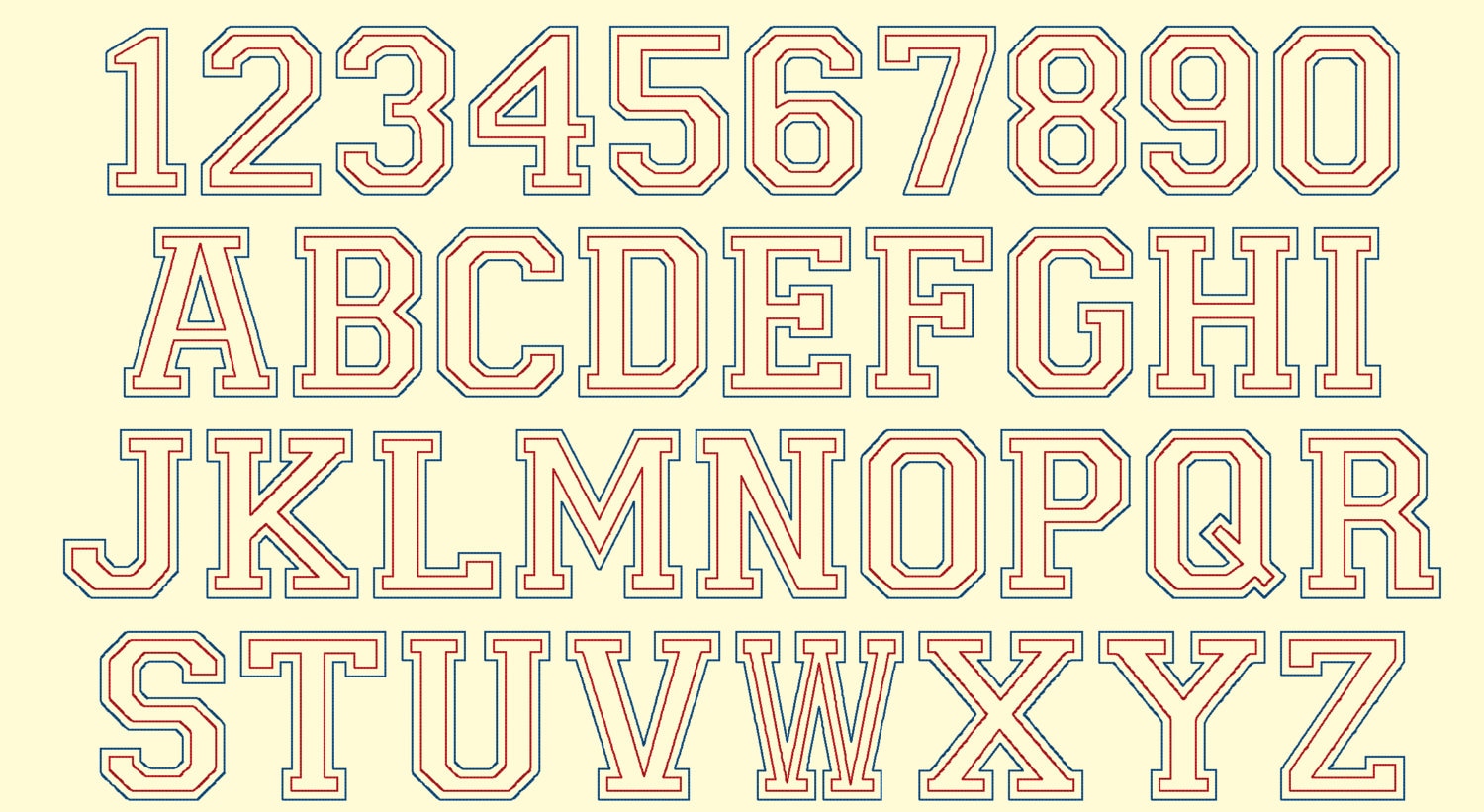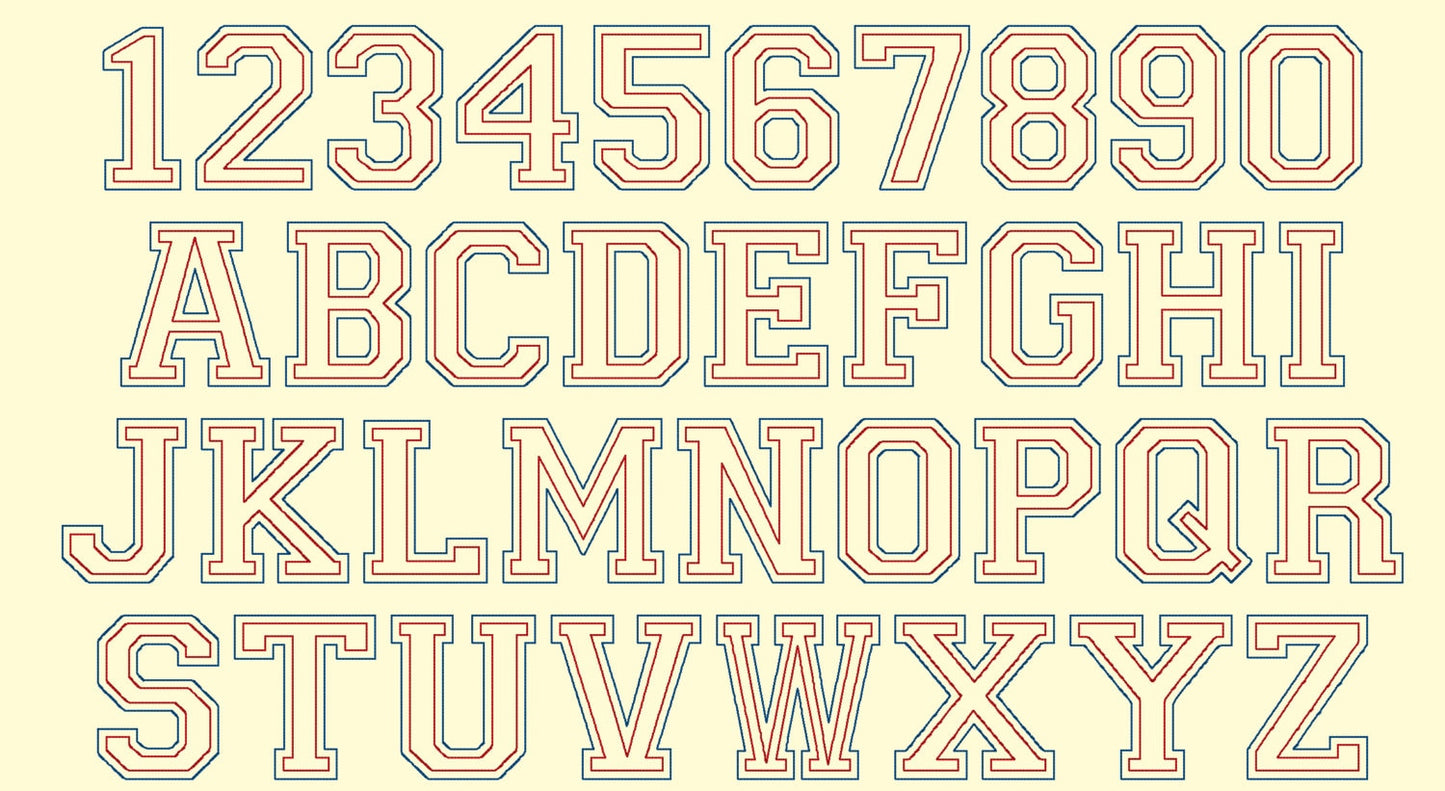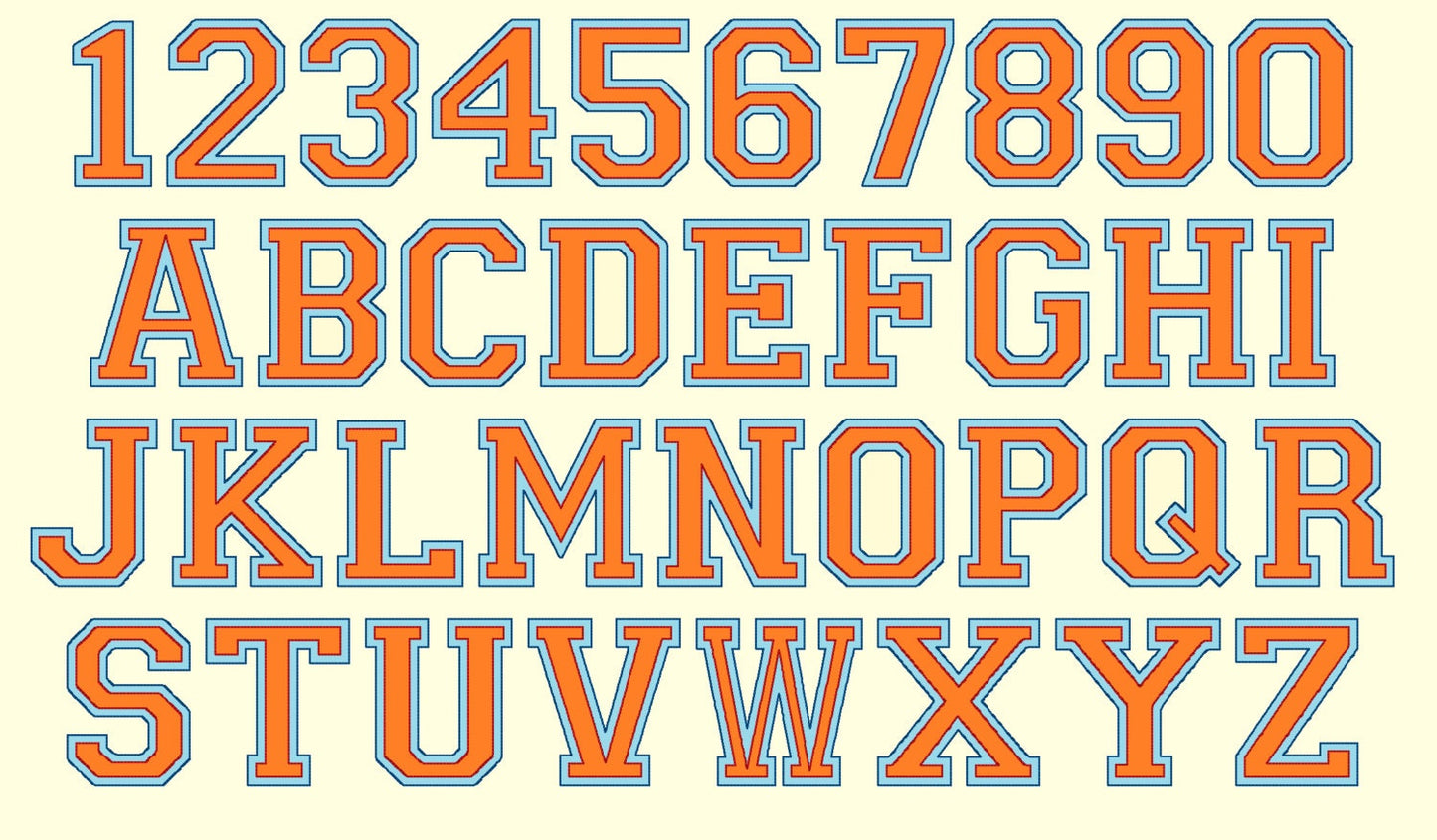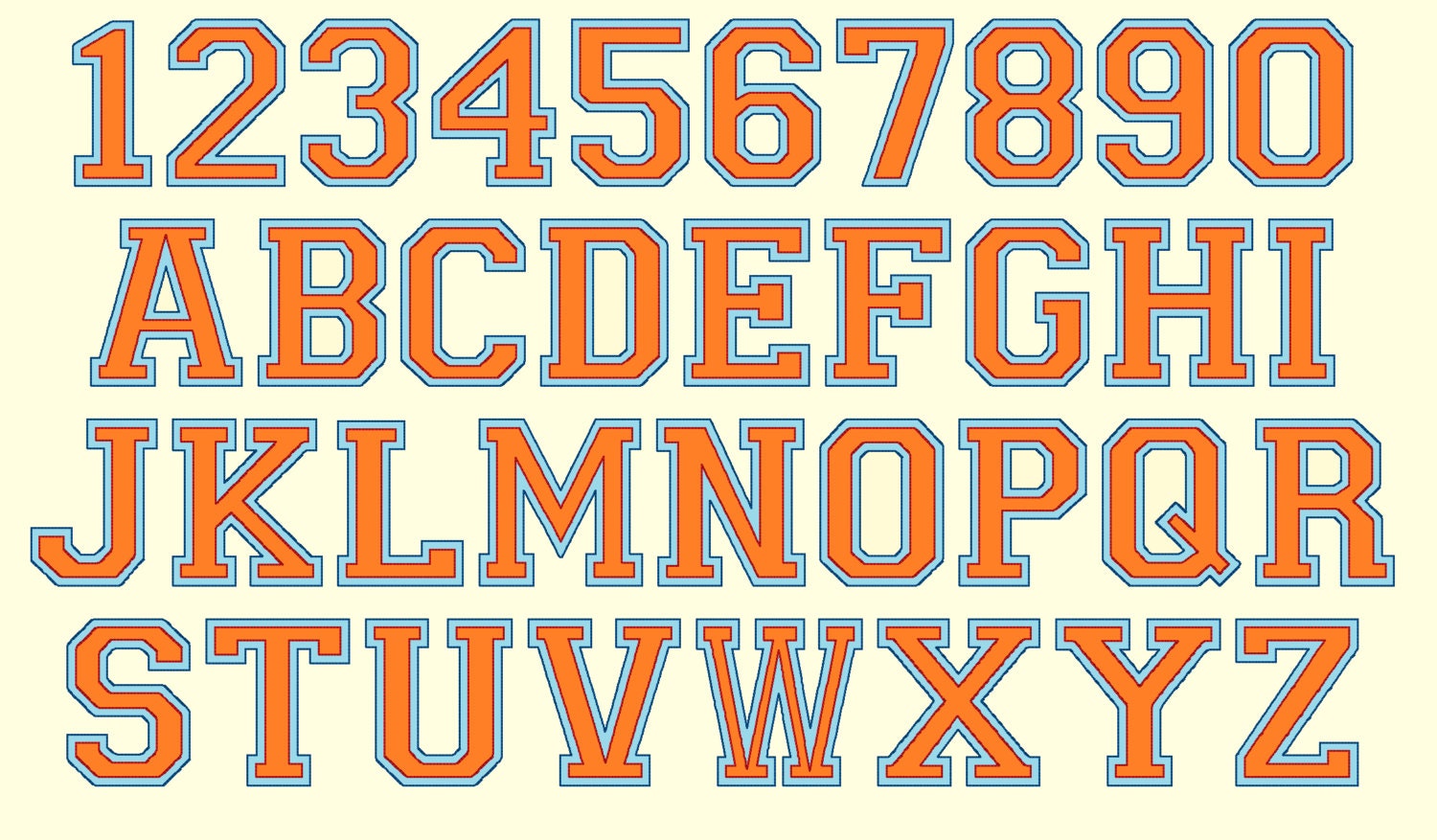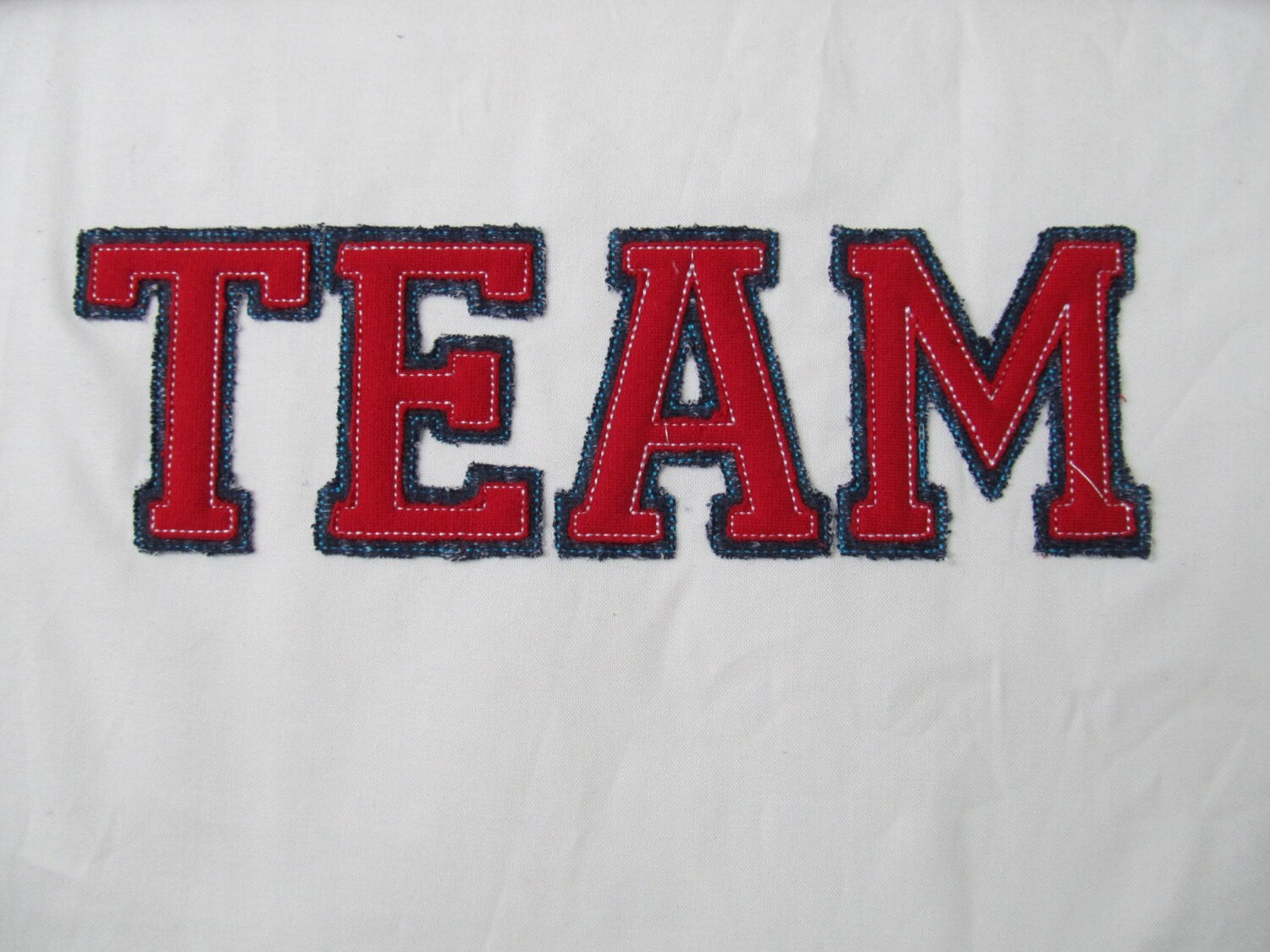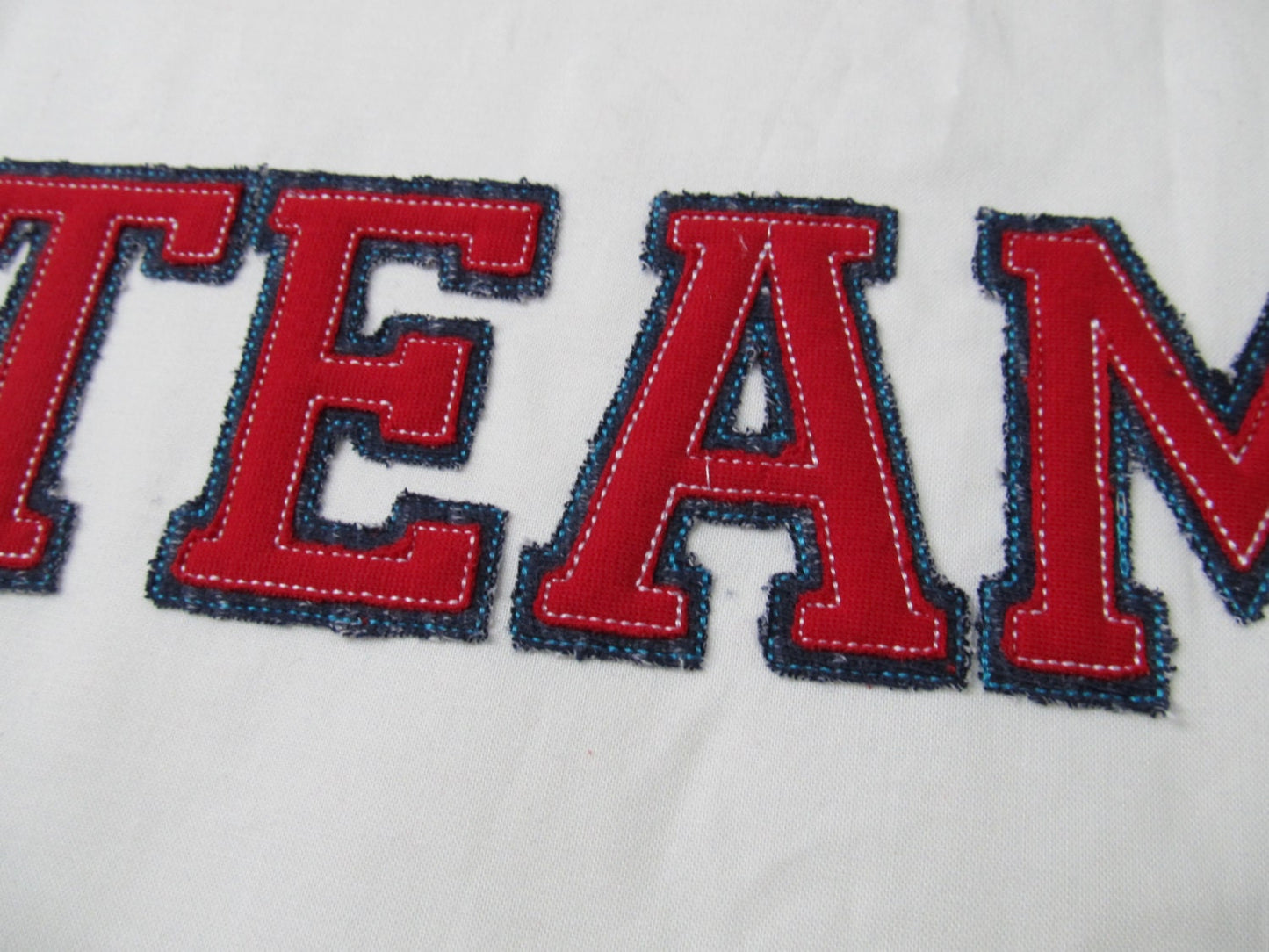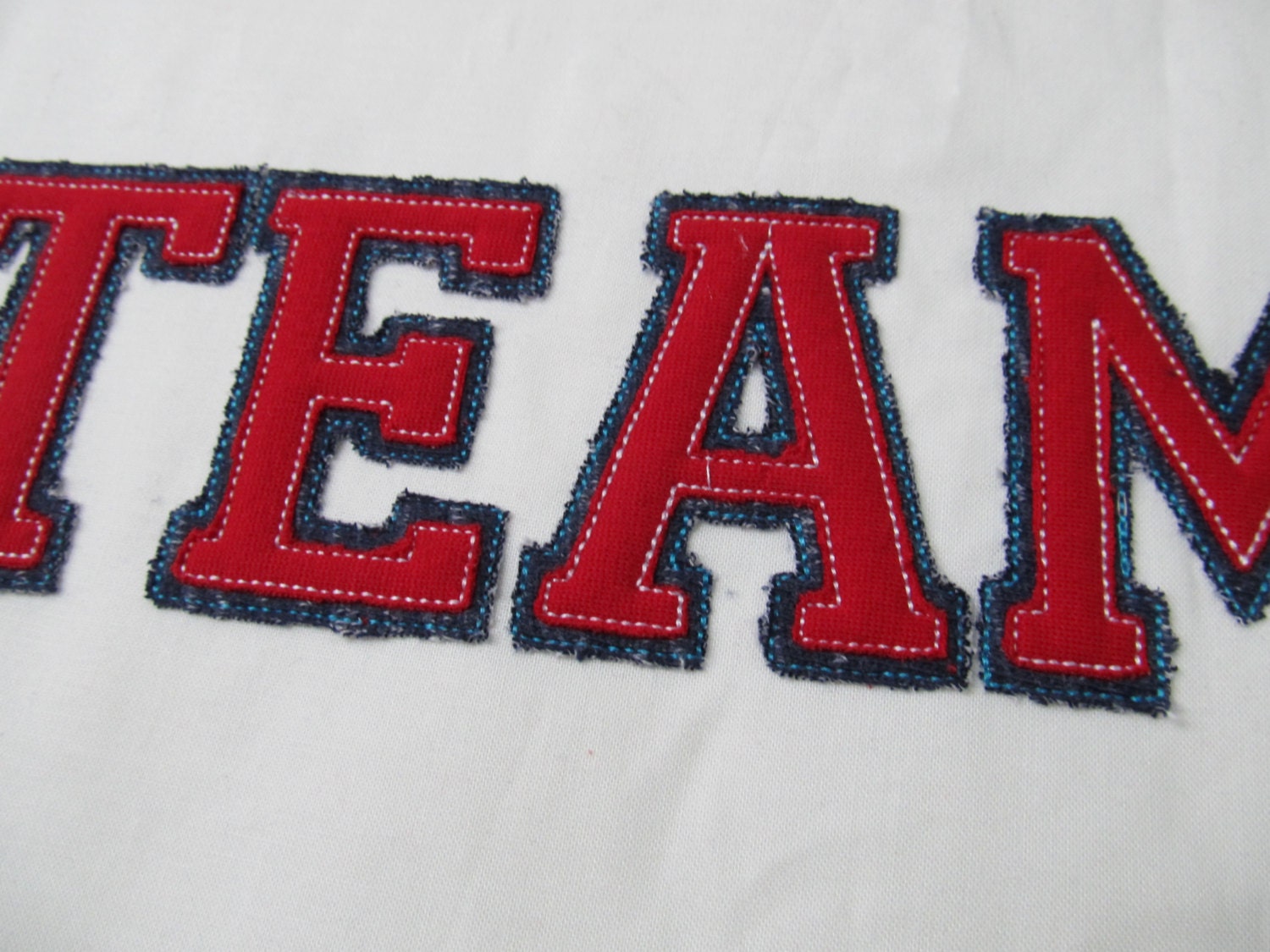
Or click to open the linkAn athletic collegiate applique font with a double bean stitch outline, for team names and numbers on jerseys and hoodies.
Applique letters with a bean stitch outline. Capital letters A to Z and numbers 0 to 9 in five sizes: 2.5, 3, 4, 5 and 6 inches.